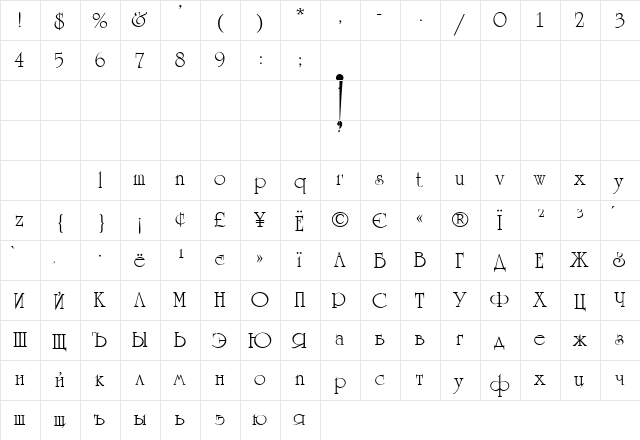
Unicorn Ukrainian Regular
Design Context for Unicorn Ukrainian Typeface
Unicorn Ukrainian is a composed and adaptable typeface that performs quietly and consistently across a wide range of design contexts.